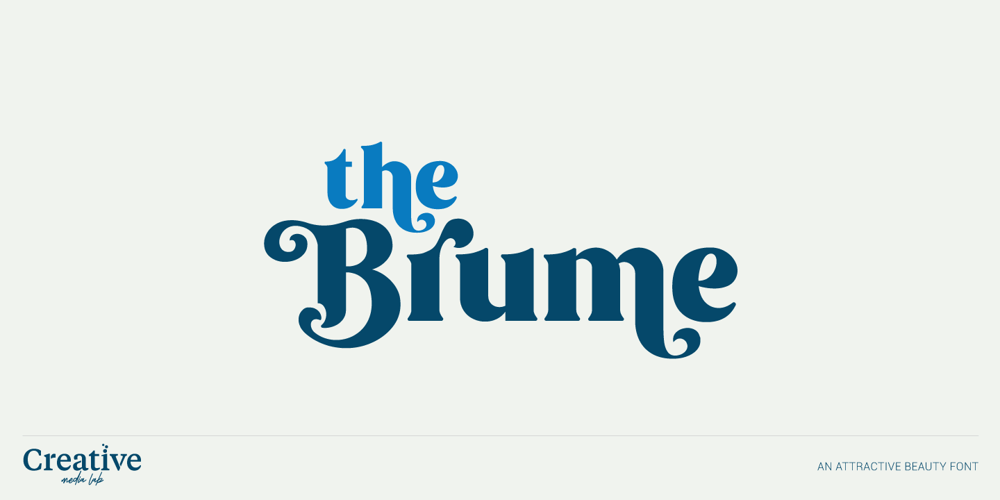
Brume Font Family was designed by Kadek Mahardika and published by Creativemedialab. Brume contains 2 styles and family package options. Brume font is a bold, attractive and beautiful font. “Easy to read, modern and elegant look but stylist”, this will be the first words that your client says to your design using this font. Comes with uppercase and lowercase. It has many alternates character with nice curve that you can arrange to create a nice logo lettering, or use it as a display face on a poster and add a few alterations to it to make a beautiful eye catching words. Brume font is best for logo lettering, headlines, product packaging, t-shirt design, wedding theme, poster, book cover, wedding invitation, Christmas and more To access alternate: In Adobe Photoshop go to Window – glyphs In Adobe Illustrator go to Type – glyphs